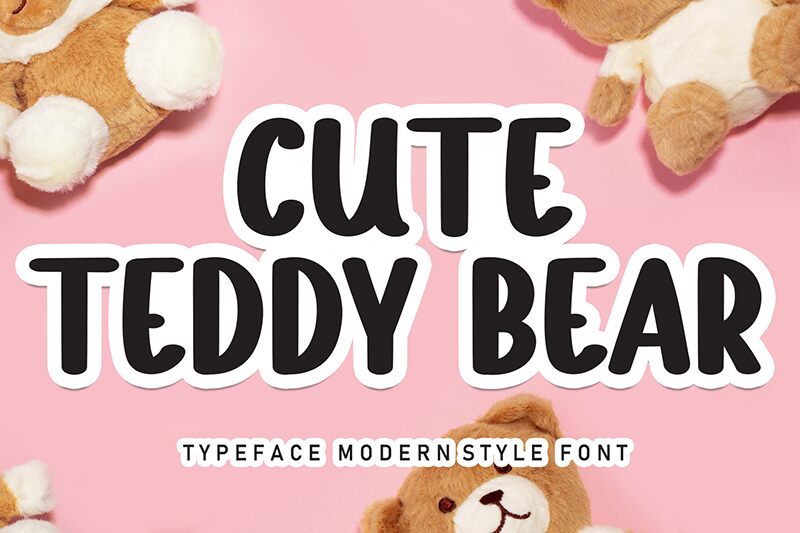
Cute Teddy Bear
Cute Teddy Bear font is a handwritten creation by Andi Moz that carries a playful and joyful ambiance with rounded, friendly letters. With its casual and inviting aesthetic, this modern font suits playful branding for products aimed at children.
Free to use in any design project Cute Teddy Bear will be irreplaceable in logos, typography posters, headlines, packaging labels, book covers, invitations and greeting cards. If you are working on comics or cartoon designs for kids, you should also definitely consider this option.